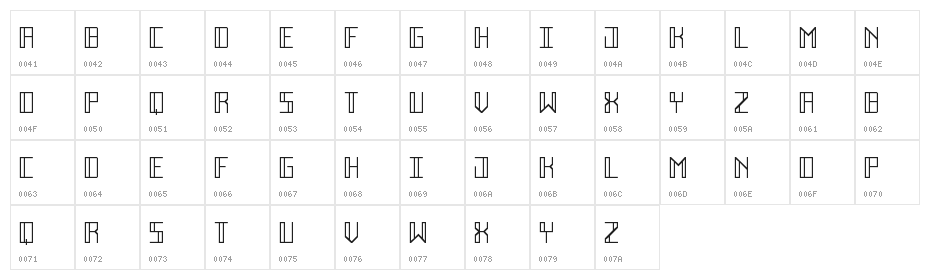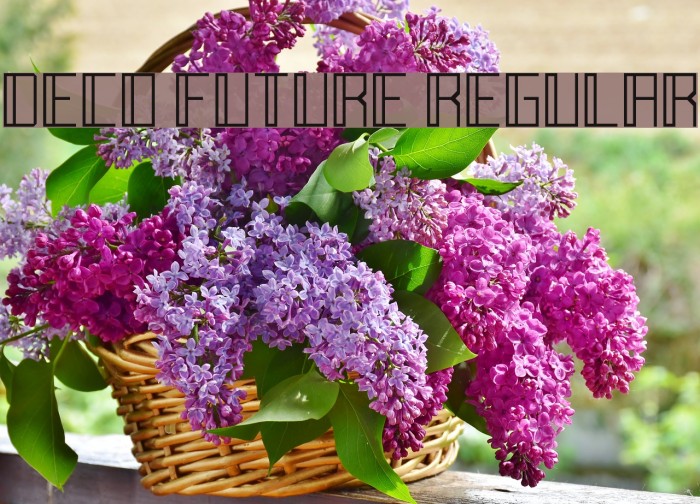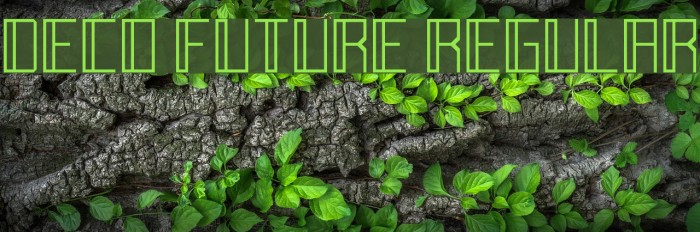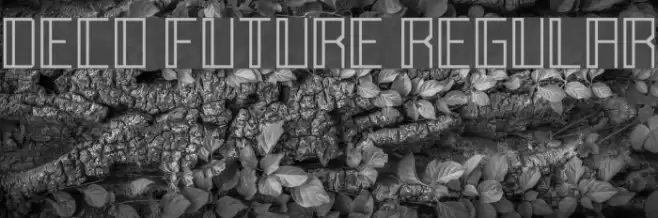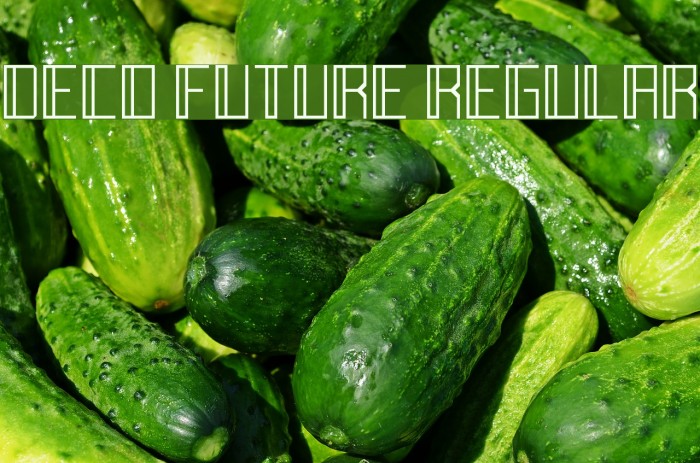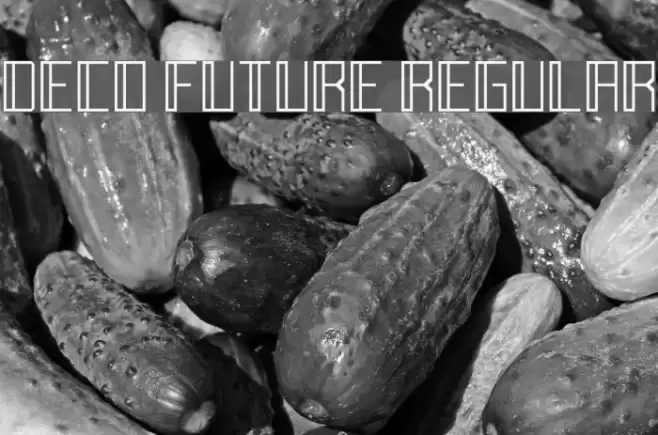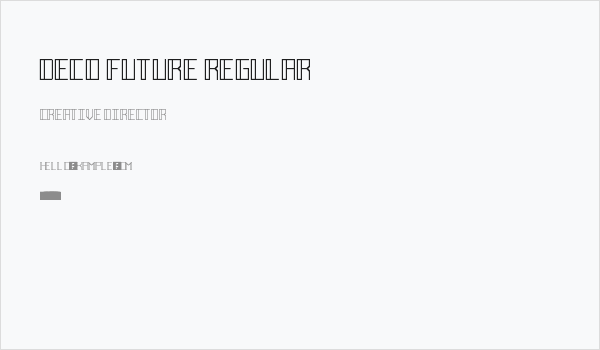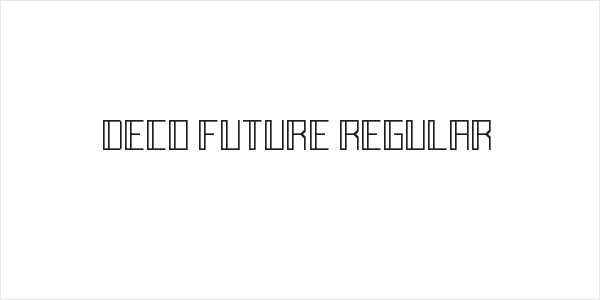
Deco Future Regular Font
Deco Future Regular Description
This font features a geometric and futuristic design, characterized by clean, straight lines and a grid-like structure. The uppercase letters are uniform in height, with a consistent stroke width that gives a modern and technical appearance. The lowercase letters maintain the same structural integrity, offering a cohesive look throughout. Numbers and special characters follow the same design principles, ensuring versatility and readability. The overall style is minimalistic yet striking, making it suitable for contemporary design projects.
| Proposed Projects | Ideal for technology branding, modern posters, digital interfaces, and futuristic-themed designs. |